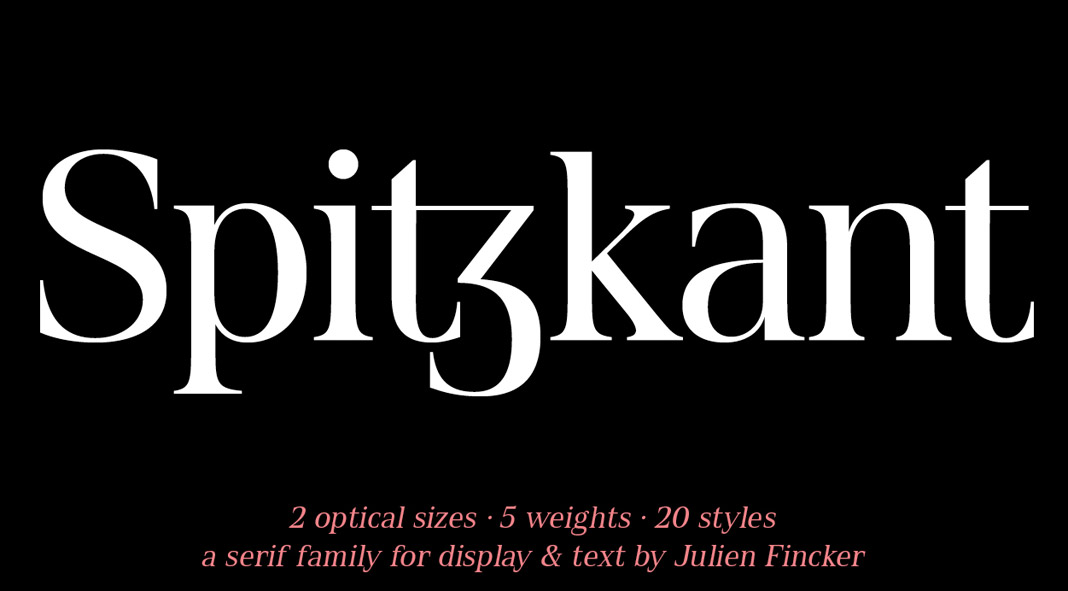
Spitzkant, a serif font family for display and text sizes with many ligatures and other typographic features.
Here at WATC, we recently had the pleasure of testing Julien Fincker’s new font family called “Spitzkant”. The serif font family was made for both display and text sizes and comes with plenty of ligatures and other typographic features. Its classic but modern look is mainly characterized by sharp serifs as well as a strong contrast with round and delicate shapes. The Spitzkant font family can be considered a true workhorse suitable for plenty of typographic applications and graphic design projects including branding, editorial, packaging, or advertising. Feel free to learn more below or click on one of the following links to purchase this unique serif font family as a heavily discounted introductory offer (only for a limited time).
The display version is characterized by a particularly high-contrast while its counterpart—the text version is based on a much lower contrast. Hence, using the Spitzkant font family you can create striking headlines and extensive body text. Both sub-families for display and text are equipped with two optical sizes including 5 weights and 20 styles ranging from thin to bold plus matching Italics. Spitzkant comprises more than 850 characters and covers over 200 Latin-based languages. The family is also equipped with an extended set of currency symbols and a wide range of OpenType features including alternative characters as stylistic sets, small caps, automatic fractions, just to name a few.